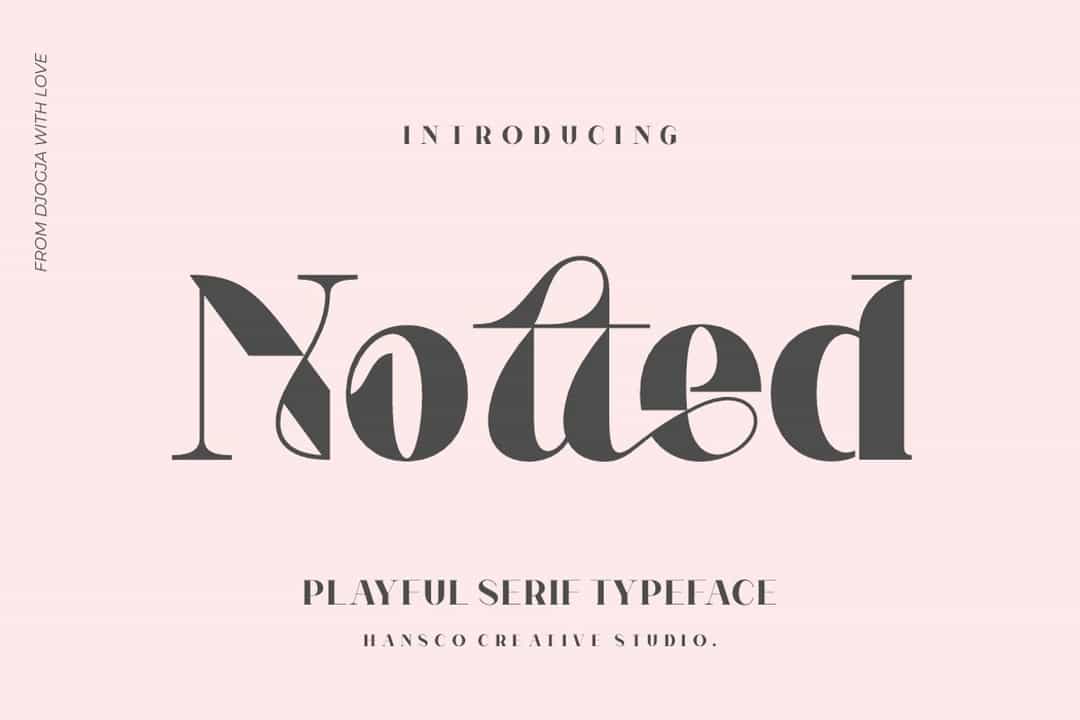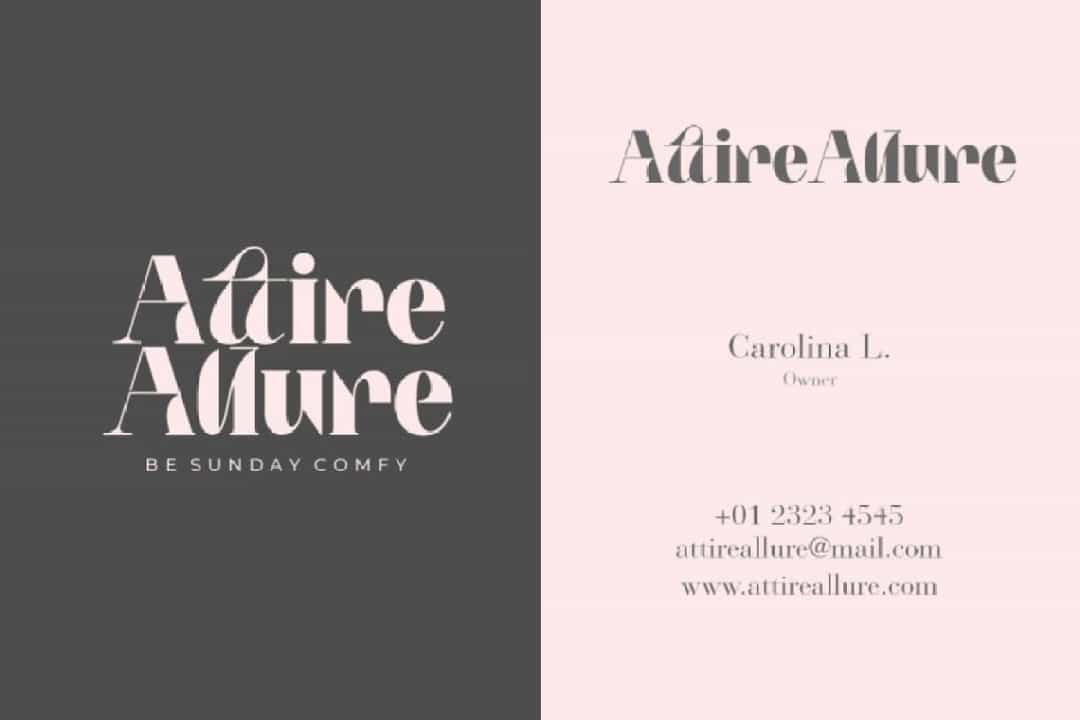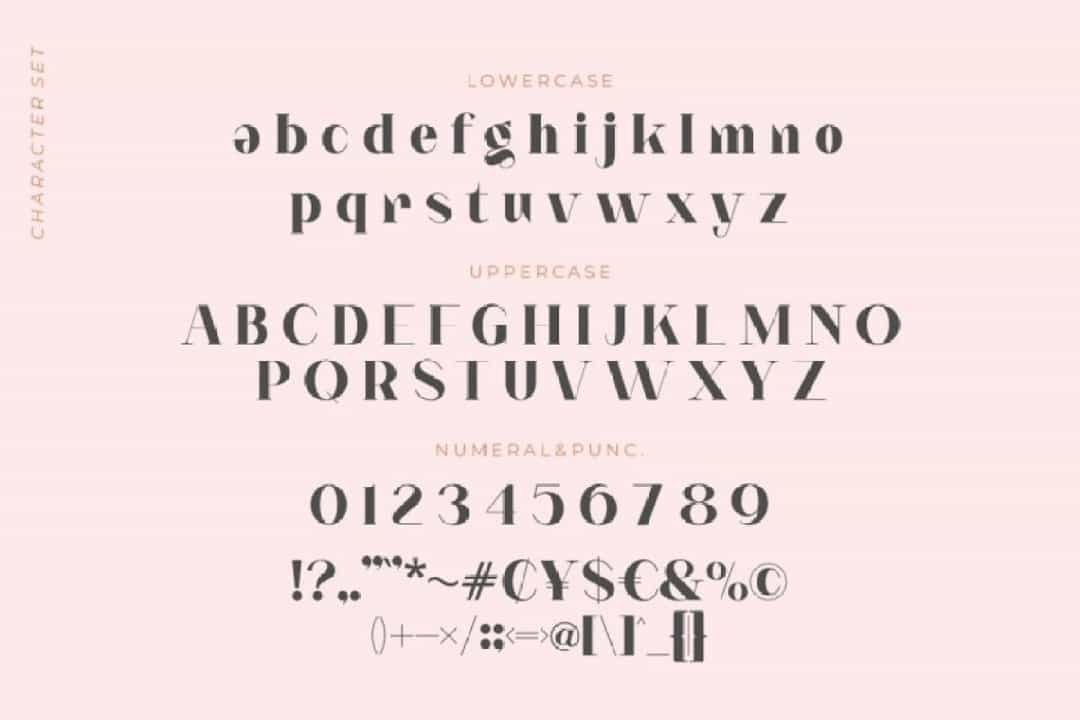
Notted is a sophisticated font which is a mix of different styles and is suitable for design boards, mood boards and logos. Distinguished by the uppercase letters and the punctuation numbers and multilingual characters; Notted is a font with clear upper and lower cases.